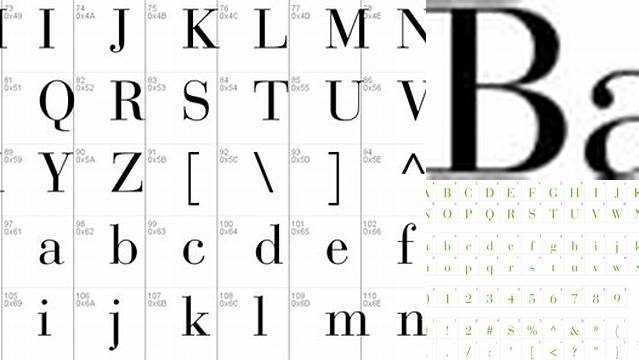
Hey guys! Ever wondered about that elegant, classic font that just screams sophistication? You're probably thinking of Bauer Bodoni STD 1 font. It’s a timeless typeface, and if you're looking to add a touch of class to your projects, you've come to the right place. This guide will walk you through everything you need to know about this font and how to get your hands on it. Let’s dive in!
What is Bauer Bodoni STD 1?
Bauer Bodoni STD 1 font is a serif typeface that’s known for its sharp contrasts between thick and thin strokes. It’s super versatile, making it a popular choice for everything from logos and branding to editorial design and even wedding invitations. Its classic, elegant look makes it stand out, and it's been a favorite of designers for decades. The Bauer Bodoni family has a rich history, and this particular variant is a standout due to its readability and visual appeal. When you want something that looks both professional and beautiful, Bauer Bodoni STD 1 is definitely worth considering.
The History of Bauer Bodoni
To really appreciate Bauer Bodoni STD 1 font, it's cool to know its backstory. It was designed by Heinrich Jost in the early 20th century for the Bauer Type Foundry. This foundry was known for its high-quality typefaces, and Bauer Bodoni was one of their biggest successes. Jost's design was based on the work of Giambattista Bodoni, an Italian typographer from the late 18th century. Bodoni's style was all about those strong contrasts and clean lines, and Jost captured that perfectly. Bauer Bodoni became super popular in the Art Deco era, and it’s still widely used today. Understanding its history helps you see why it has such a classic and enduring vibe.
Why Choose Bauer Bodoni STD 1 Font?
So, why should you choose Bauer Bodoni STD 1 font for your next project? Well, it's all about the elegance and clarity it brings. This font has a way of making your text look sophisticated without being overly fussy. Its high contrast and sharp serifs give it a distinct personality, perfect for headlines, logos, and body text alike. If you're aiming for a look that's both classic and modern, Bauer Bodoni STD 1 is a fantastic option. Plus, it’s highly readable, which is a huge bonus. You want your message to be clear, right? This font helps you achieve that while looking stylish.
Bauer Bodoni STD 1 Font in Graphic Design
In the world of graphic design, Bauer Bodoni STD 1 font is a go-to choice for many pros. Its elegance makes it perfect for branding materials, from logos and business cards to website headers. Imagine a sleek, modern logo with the timeless touch of Bauer Bodoni – it’s a winning combination. It’s also great for print materials like brochures and posters, where you want to make a statement. The font's clarity ensures your message is easily readable, while its stylish appearance adds a touch of class. Whether you're designing for a luxury brand or a high-end event, Bauer Bodoni STD 1 can help you create a look that’s both sophisticated and memorable.
Bauer Bodoni STD 1 Font in Branding
When it comes to branding, Bauer Bodoni STD 1 font can be a game-changer. A font is a crucial part of your brand identity, and choosing the right one can make a huge difference. Bauer Bodoni STD 1 has a classic, sophisticated feel that’s perfect for brands aiming for a timeless and elegant image. Think of high-end fashion brands, luxury hotels, or even upscale restaurants. This font communicates quality and attention to detail. Using it in your logo, website, and marketing materials can help you create a cohesive and polished brand identity that resonates with your target audience. It's about making a statement of quality and style, and Bauer Bodoni STD 1 helps you do just that.
Bauer Bodoni STD 1 Font in Web Design
For web design, Bauer Bodoni STD 1 font can add a touch of sophistication to your site. Using it for headings and subheadings can create a visually appealing hierarchy that draws the reader's eye. While it might not be the best choice for large blocks of body text (due to its high contrast), it works wonders for titles and call-to-action buttons. Imagine a sleek, modern website with Bauer Bodoni STD 1 highlighting key information – it looks professional and stylish. Just make sure to pair it with a more readable sans-serif font for the body text to ensure a smooth user experience. The key is to use it strategically to enhance the overall design without sacrificing readability.
Bauer Bodoni STD 1 Font in Print Design
In print design, Bauer Bodoni STD 1 font really shines. Its sharp serifs and high contrast make it ideal for creating visually striking layouts. Think about using it for magazine headlines, book covers, or even wedding invitations. It adds a touch of elegance and sophistication that’s hard to beat. The font’s classic look makes it perfect for projects that need to convey a sense of tradition and quality. Whether you’re designing a high-end brochure or a formal invitation, Bauer Bodoni STD 1 can help you create a polished and professional final product. Just remember to consider the paper stock and printing method to ensure the font’s details are rendered beautifully.
Pairing Bauer Bodoni STD 1 with Other Fonts
One of the tricks to using Bauer Bodoni STD 1 font effectively is knowing how to pair it with other fonts. Because it’s a high-contrast serif font, it often works well with sans-serif fonts for body text. Think of pairing it with a clean, modern font like Helvetica or Arial. This combination creates a nice visual balance, with Bauer Bodoni STD 1 providing the elegance and the sans-serif font ensuring readability. You could also pair it with a more subtle serif font for a sophisticated, cohesive look. The key is to choose a font that complements Bauer Bodoni STD 1 without competing with it. This will help you create a design that’s both stylish and easy to read.
Using Bauer Bodoni STD 1 for Logos
When it comes to logo design, Bauer Bodoni STD 1 font can give your brand a sophisticated and timeless look. Its elegant serifs and high contrast make it a standout choice for businesses aiming for a classic aesthetic. Imagine a high-end fashion brand or a luxury hotel using Bauer Bodoni STD 1 in their logo – it instantly conveys quality and refinement. However, it’s important to use it strategically. While it's great for creating a sense of tradition and elegance, it might not be the best fit for every brand. Consider your target audience and the overall message you want to convey. If you're aiming for a look that’s both stylish and timeless, Bauer Bodoni STD 1 is definitely worth considering.
Bauer Bodoni STD 1 Font: A Timeless Choice
In conclusion, Bauer Bodoni STD 1 font is a truly timeless choice for any design project that calls for elegance and sophistication. Its rich history, distinct characteristics, and versatile nature make it a standout typeface that continues to inspire designers. Whether you’re crafting a logo, designing a website, or creating print materials, Bauer Bodoni STD 1 can help you achieve a polished and professional look. While obtaining a licensed version is important for commercial use, exploring free alternatives can also be a great option for personal projects. So go ahead, give Bauer Bodoni STD 1 a try and see how it can elevate your designs!